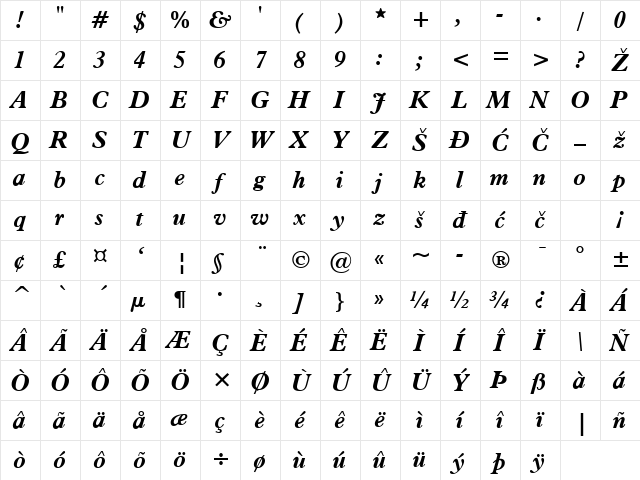
Aldine Bold Italic
Aldine Family
Design Context for Aldine
Aldine is a composed and adaptable typeface that performs quietly and consistently across a wide range of design contexts. The slanted form adds forward momentum and visual energy. Its bold stroke weight gives it real presence on the page.
Pro Tip: Use Aldine for emphasis, pull quotes, and subheadings where its slanted energy can add rhythm to the layout.